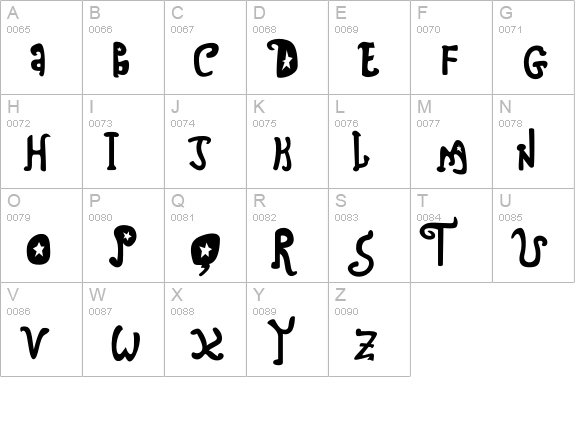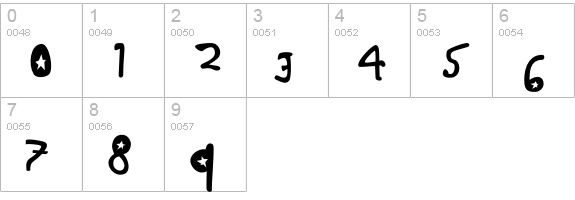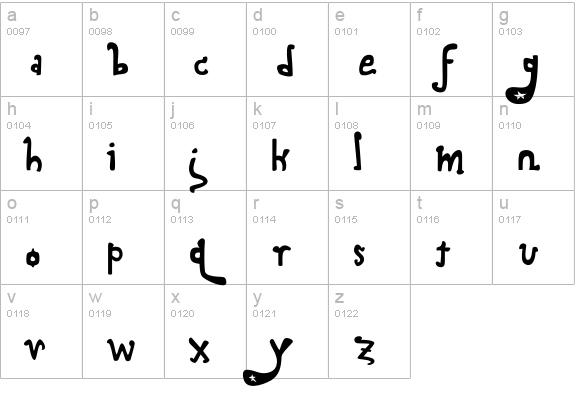
Craig Font Details
Craig font is a modern and versatile typeface that combines elegance with readability. Its sleek lines and balanced proportions make it a perfect choice for various design projects, from branding to editorial layouts. With a wide range of weights and styles, Craig font offers flexibility and creativity for designers looking to make a statement. What's even better is that Craig font is available for free download at FontsMarket.com. This means you can easily access and use this high-quality font without any cost, making it a valuable addition to your font collection. Don't miss out on the opportunity to elevate your designs with the sophisticated charm of Craig font - download it today and let your creativity shine.